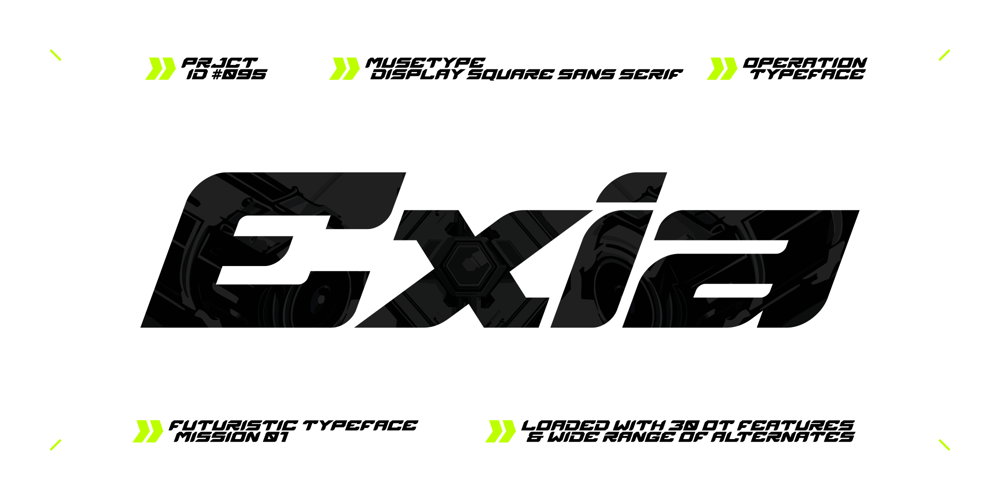
Exia Display Font Family was designed by Abdul Rozak, Fajar Septianto, Suhandi Benjamin and published by Musetype. Exia Display contains 2 styles and family package options. Exia Display is a display square sans serif font specifically made for short-form text and display purpose, but not limited to branding. The word that describe this typeface is “Punchy & Aggressive”, The typeface is not all just pretty it’s loaded with 30 Opentype features, 3500+ glyphs & supports 100+ languages.Made specifically for short-form has it’s own advantages such as every glyph combination was designed to compliment each other and it comes with Regular and Outline style.Designed by Abdul Rozak as his first typeface, developed & re-designed by Suhandi Benjamin & Fajar Septianto. The story behind the typeface went back to 13 years ago when we all three dreamed the modern futuristic font that just work with the aggressive branding style we had because we were all ( and still) graphic designers back then and looking for a suitable font is really a challenge and we don’t even think about making our own font until our client want the designs to be modern & futuristic… with large design quantity we had to fulfill, This is the exact typeface we wish we had back then.